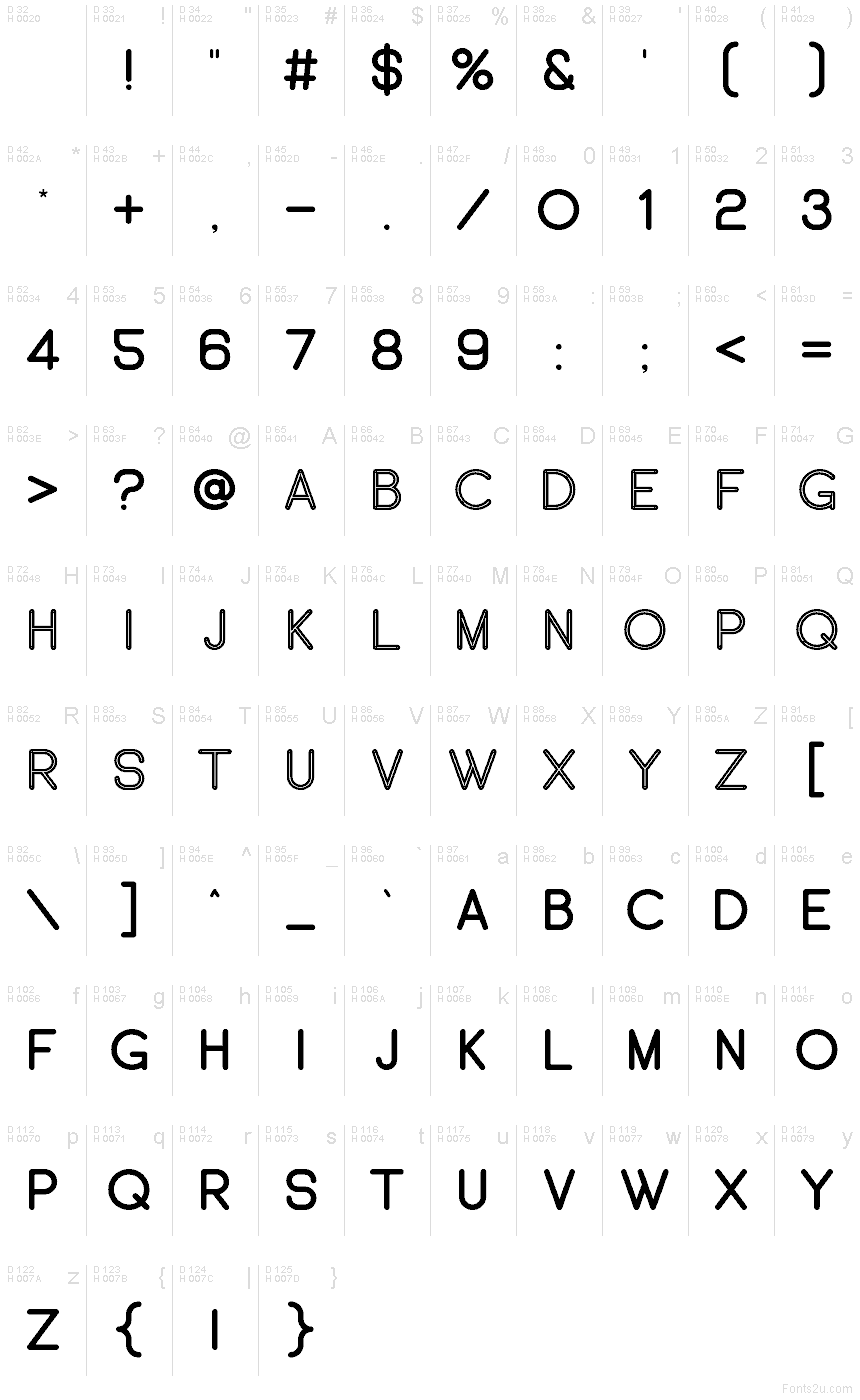
Norase Regular
Norase font by Ermedia Studio is a free modern rounded display sans that leans into a clever outline-and-solid interplay. Thick, soft geometry gives it a friendly weight, while select characters flash a double-line effect that reads like neon tubing—crisp, airy, and eye-catching. The rhythm stays steady and readable, so headlines feel bold without shouting.
Using Norase, you get a striking first impression that still scales cleanly. It shines on posters, tech branding, esports logos, event signage, packaging, and app splash screens. Set it big with a touch of extra tracking to show off the inner lines. Pair this free font with a simple workhorse like Inter or your system sans to keep body copy calm and clear.